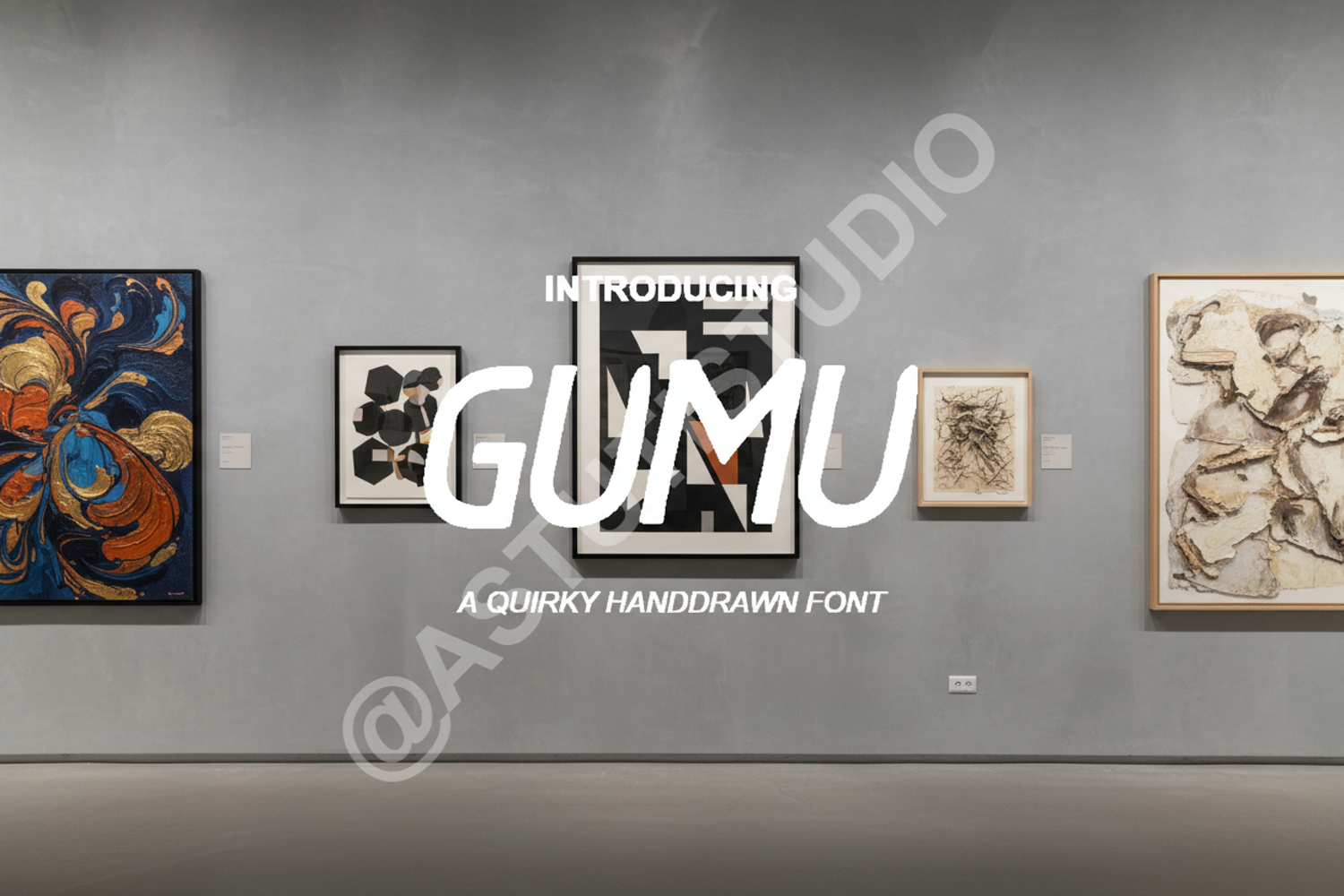
Gumu - Modern Geometric Sans Serif
Gumu
Gumu is a premium geometric sans serif font that embodies modern elegance and functional design. Crafted with precision, this typeface offers a clean and professional aesthetic that elevates any creative project. Whether you are building a brand identity or designing a sleek website, Gumu provides the perfect balance of style and versatility.
- Complete uppercase and lowercase character sets
- Extensive multilingual support
- Branding and Identity: Create memorable logos and corporate stationery.
- Editorial Design: Perfect for high-end magazine layouts and book covers.
- Web Design: Clean headers and legible navigation for modern interfaces.
- Social Media: Eye-catching graphics for Instagram and professional LinkedIn assets.
- Minimalist Packaging: Enhance product labels with sophisticated, contemporary typography.